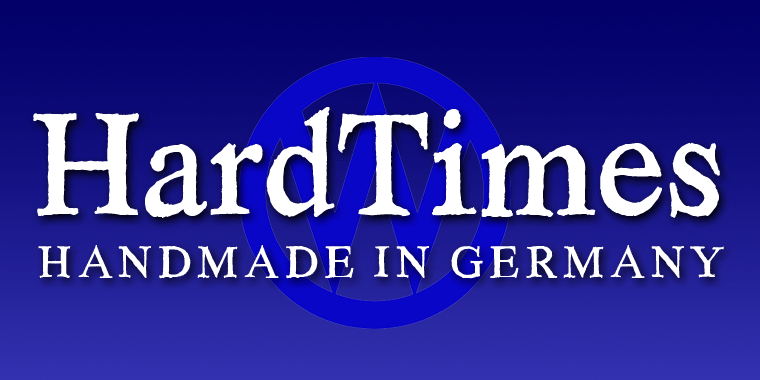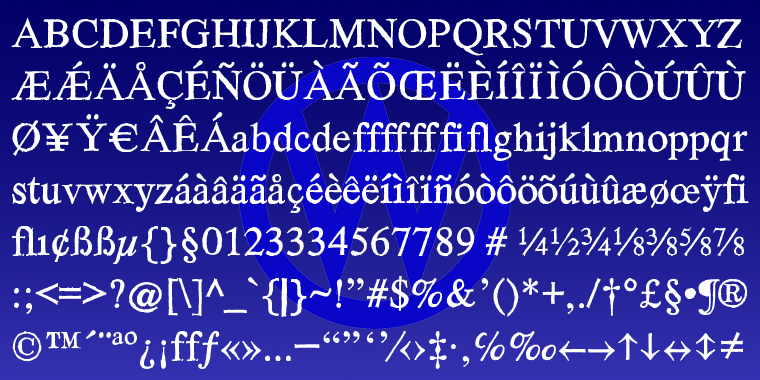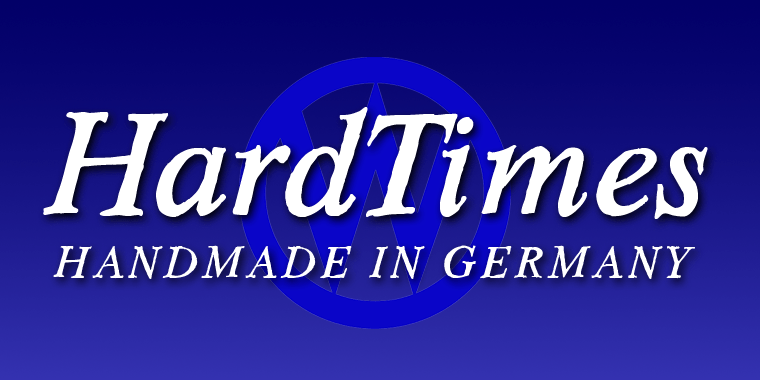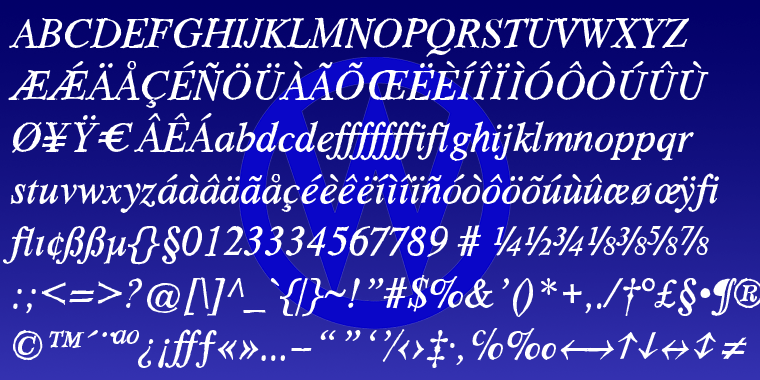
HardTimes Roman
Font Family by Wiescher Design
HardTimes has been hard work, designing a handmade typeface must always have the right balance between rough and smooth, specially with this Times-like face. It has the big European glyph-set, so that it can be used all over the continent I come from. I gave this font extensive kerning. Times are too hard for boring typefaces, so try this one for a change.